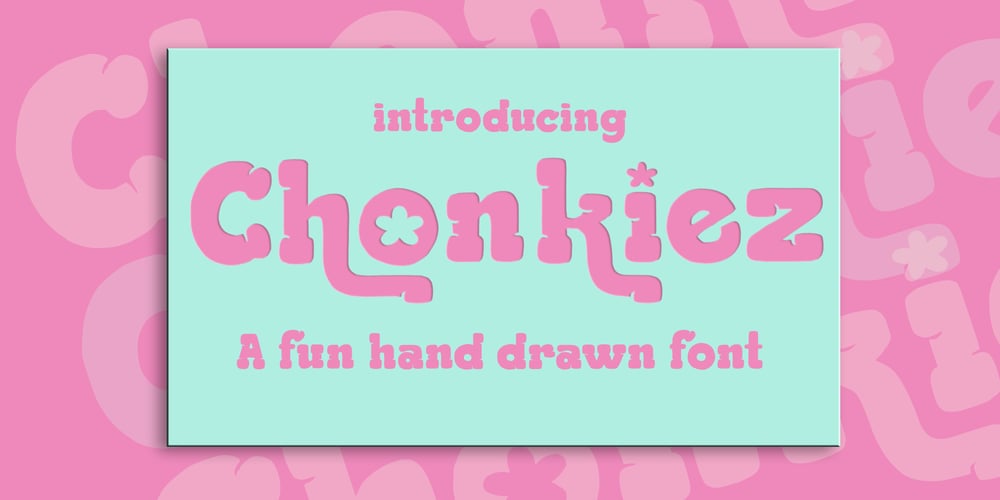
Chonkiez Font Family was designed by Monica Tatontos and published by Moncimon. Chonkiez contains 2 styles and family package options. Introducing “Chonkiez”: a bold, hand-drawn font exuding cute charm. With its thick, rounded strokes, Chonkiez brings a playful and friendly feel to any design. Perfect for fun branding projects like chocolates, snacks, kids’ clothing, cute greeting cards, or even children’s books, Chonkiez adds a warm, whimsical touch to your creations.